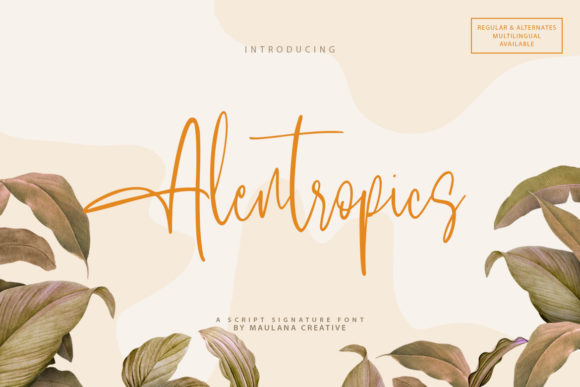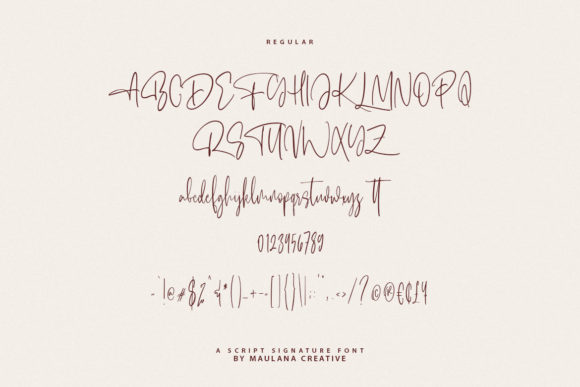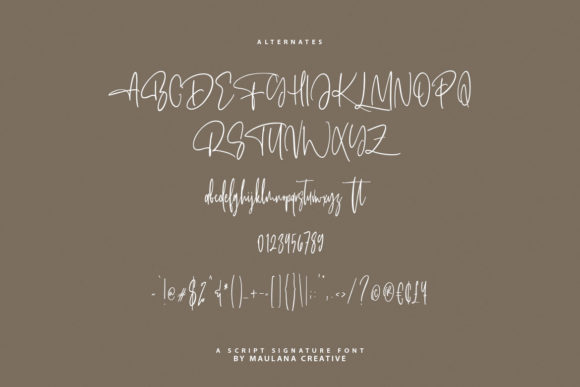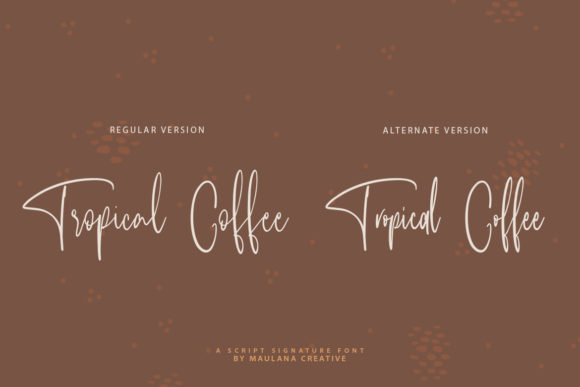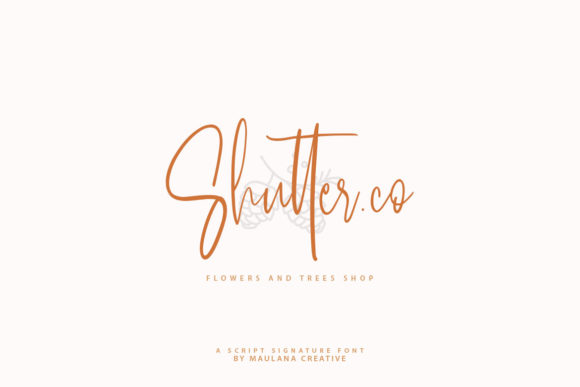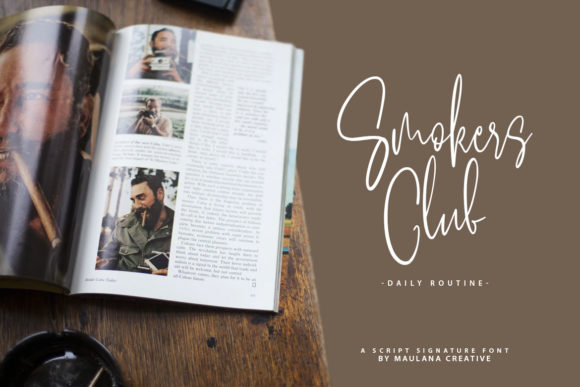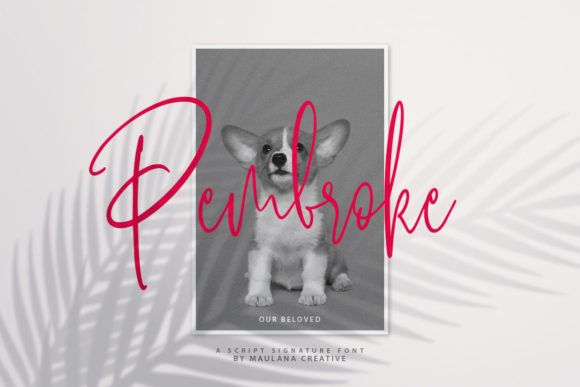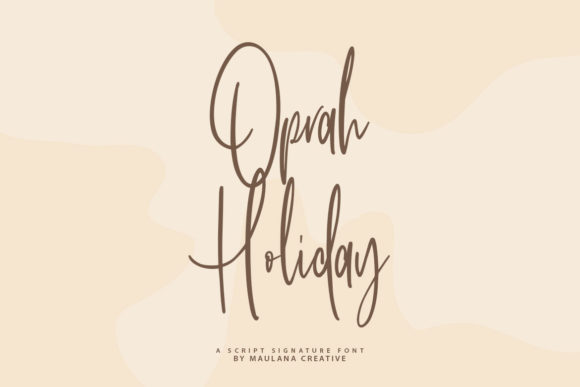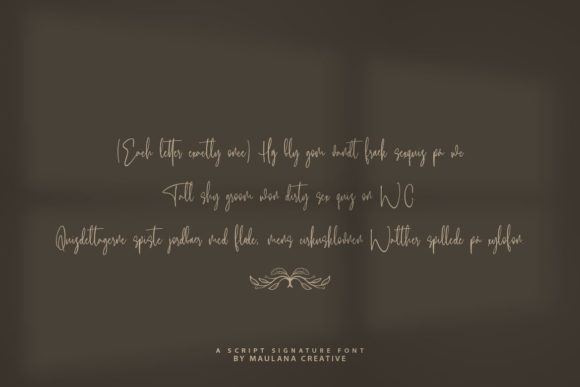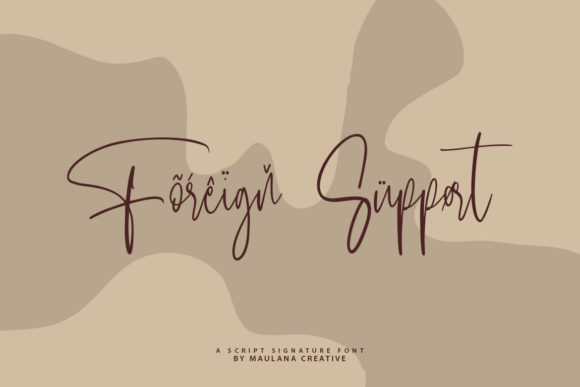
Alentropics Font
About Alentropics Font
Alentropics is the ideal font to give your upcoming arts & craft projects a distinct, authentic feel. Fall in love with its modern vibe.